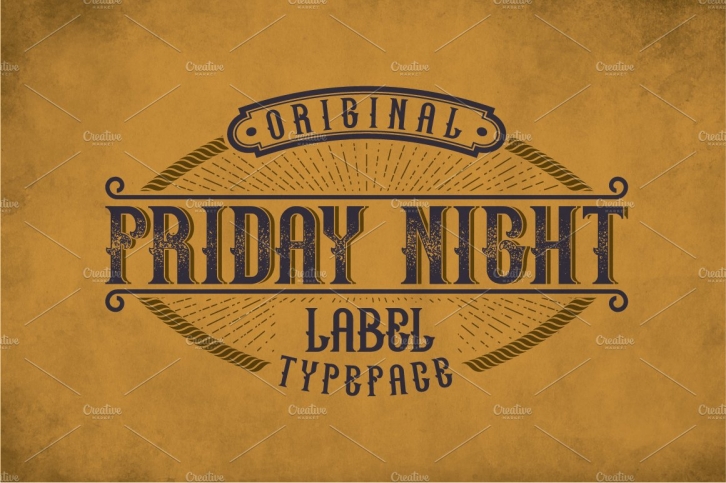
Introducing a vintage look label typeface named "Friday Night". It's made in strong and vintage label style. Typeface is good viewed on any labels design.
- You can mix effects (look at 4-th screenshot)